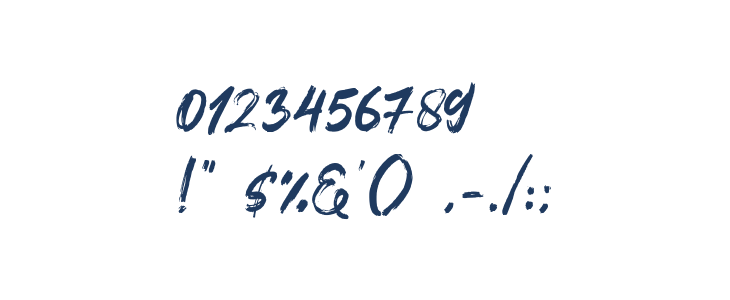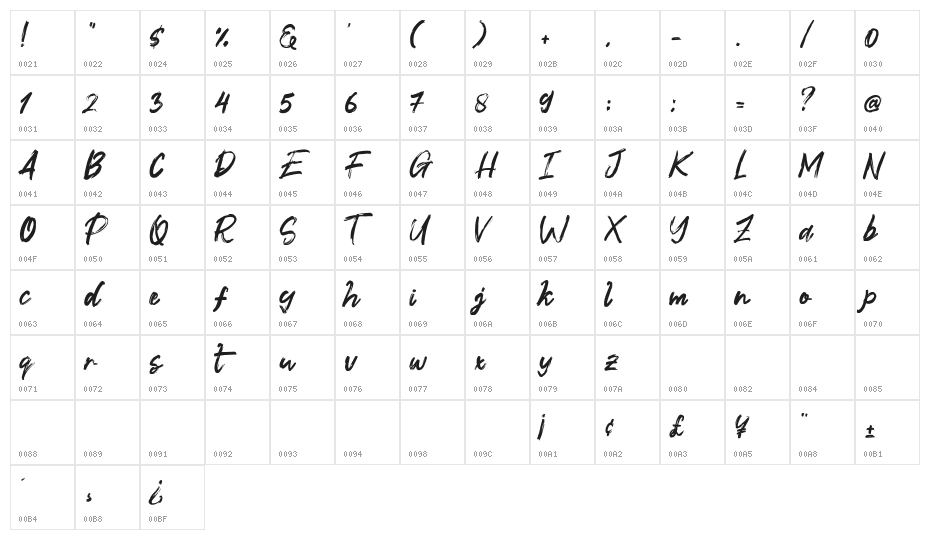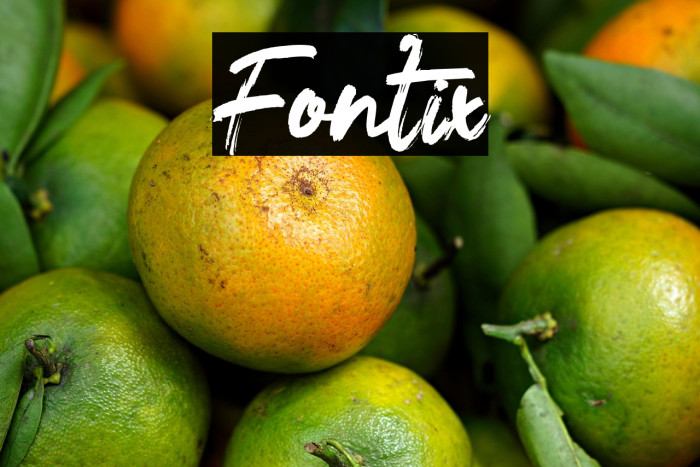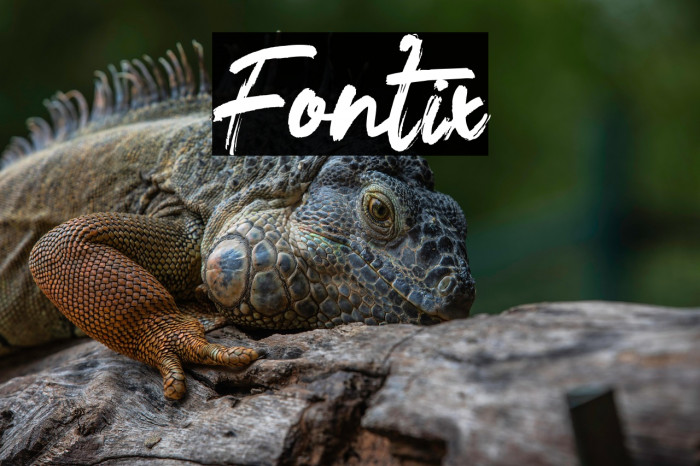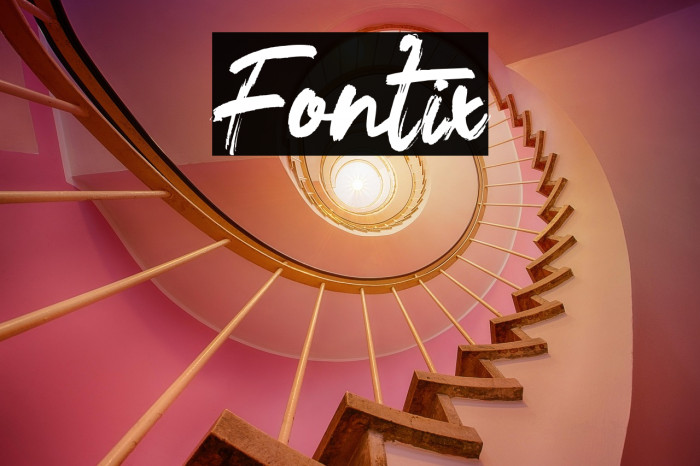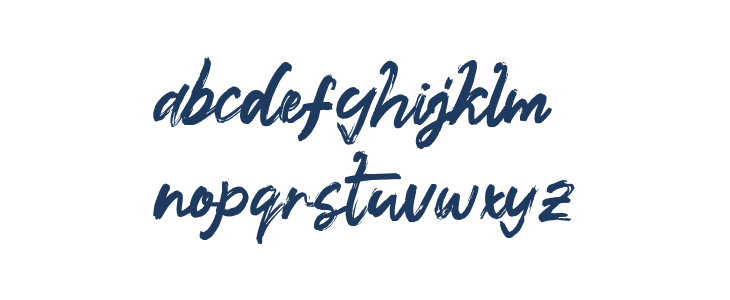
Fontix Font
Fontix Description
This expressive and dynamic font features a bold, brush-like appearance with a hand-painted aesthetic. The strokes are irregular and energetic, giving each character a unique and artistic flair. The uppercase and lowercase letters maintain a consistent style, with varying stroke widths that add depth and movement. Numbers and special characters are equally bold and expressive, fitting seamlessly with the overall design. This font is ideal for projects that require a strong visual impact and a creative touch.
| Use Case | Logos, Headlines, Posters |
| Proposed Projects | Ideal for branding, posters, artistic projects, and any design requiring a bold, creative touch. |